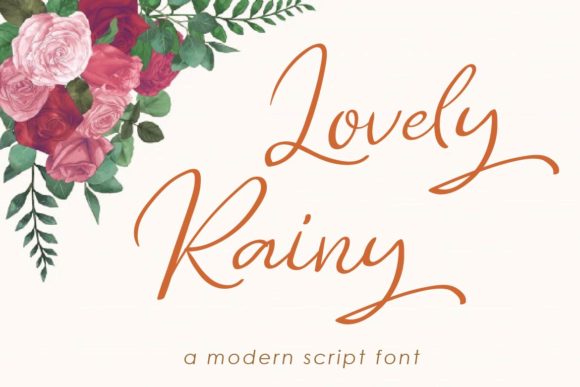
**Introducing Lovely Rainy: The Enchanting Font for Captivating Designs**
Immerse yourself in the alluring charm of Lovely Rainy, a captivating script font that transports you to a world of beauty and endless creativity. Inspired by the timeless charm of classic typography, Lovely Rainy emerges as an absolute gem, ready to elevate your design vision to new heights.
With its intricate swashes and elegant ligatures, Lovely Rainy boasts an unmatched versatility that adapts effortlessly to a tapestry of design endeavors. Picture your logo adorned with Lovely Rainy's enchanting strokes, leaving an unforgettable mark on your audience's minds. Unleash your creativity on social media, where your posts will shimmer with an eye-catching allure. Embark on crafty DIY projects, transforming them into masterpieces with Lovely Rainy as your creative companion.
Its delicate curves and flowing lines evoke a sense of effortless elegance, beckoning you to craft designs that speak volumes without uttering a word. Whether you're a seasoned designer or just starting your creative journey, Lovely Rainy will be your trusted ally, guiding you towards extraordinary outcomes.
Prepare to be enchanted by Lovely Rainy, the font that will reignite your passion for design. Allow its captivating charm to guide you towards stunning creations that leave a lasting impression.
**Immerse yourself in the delightful embrace of Lovely Rainy today, and let your designs blossom with newfound beauty.**